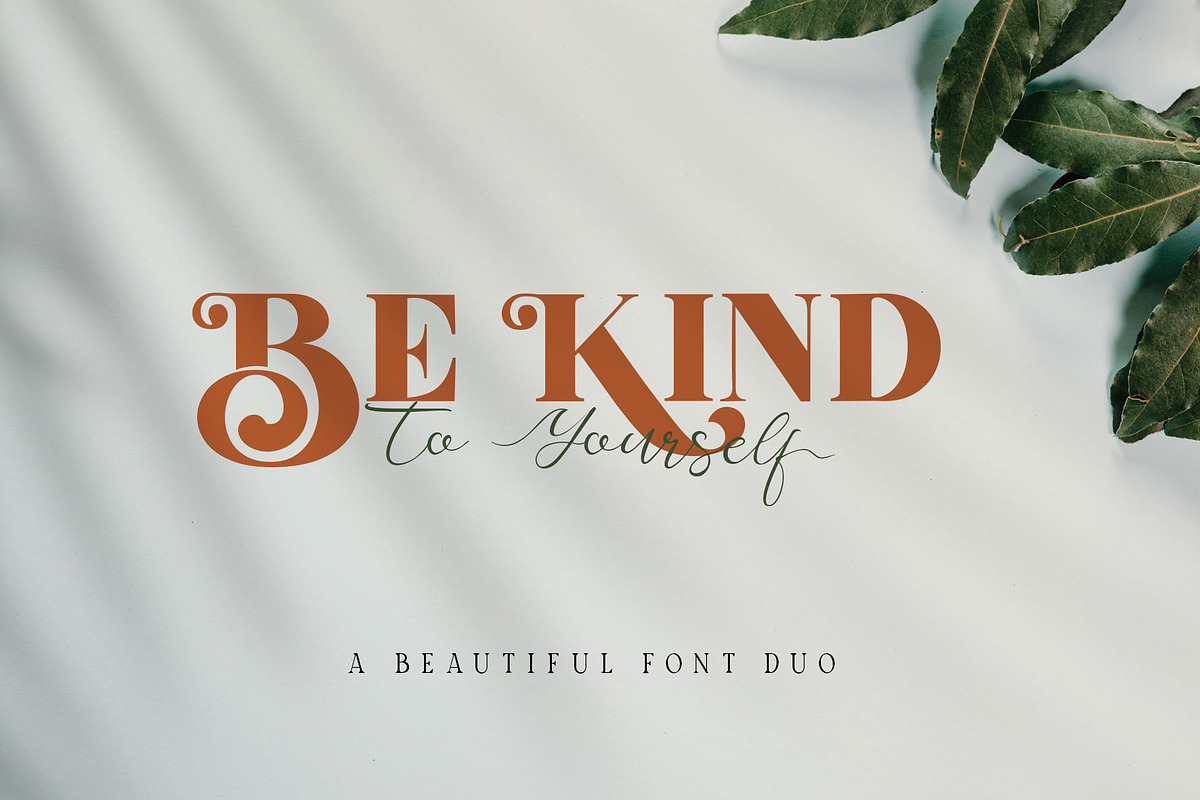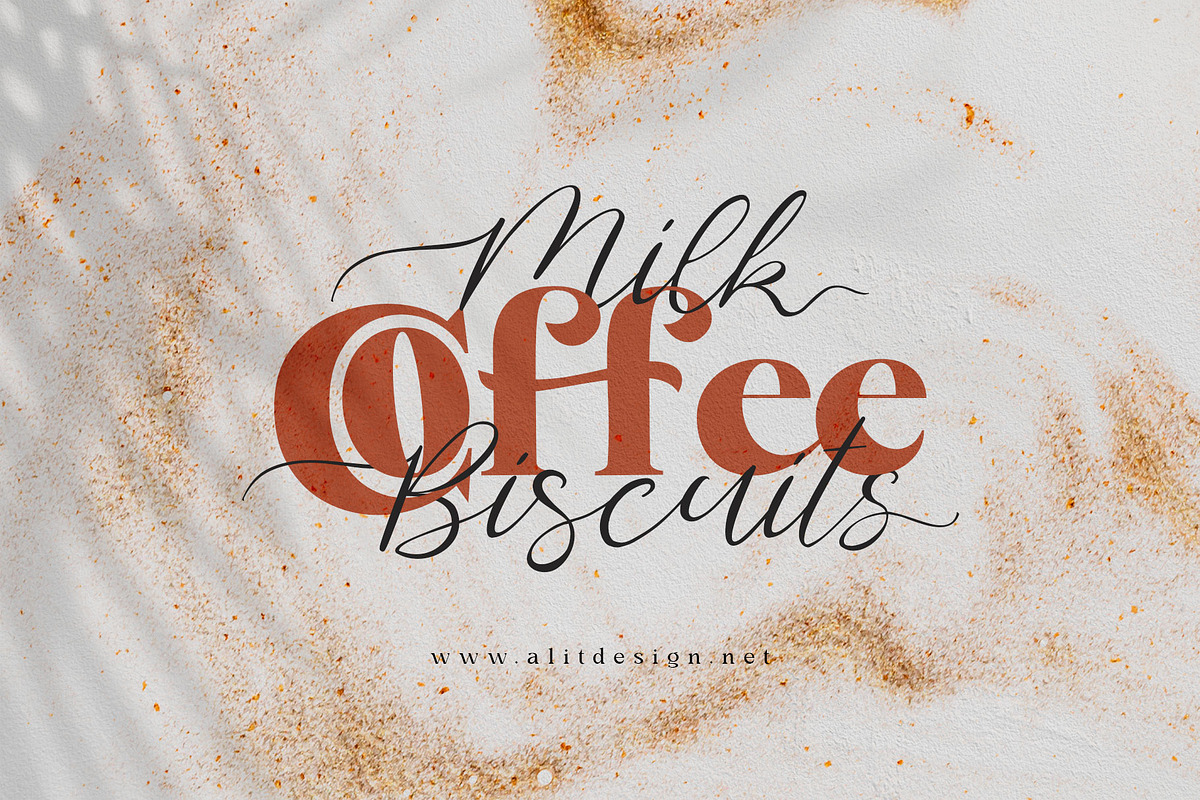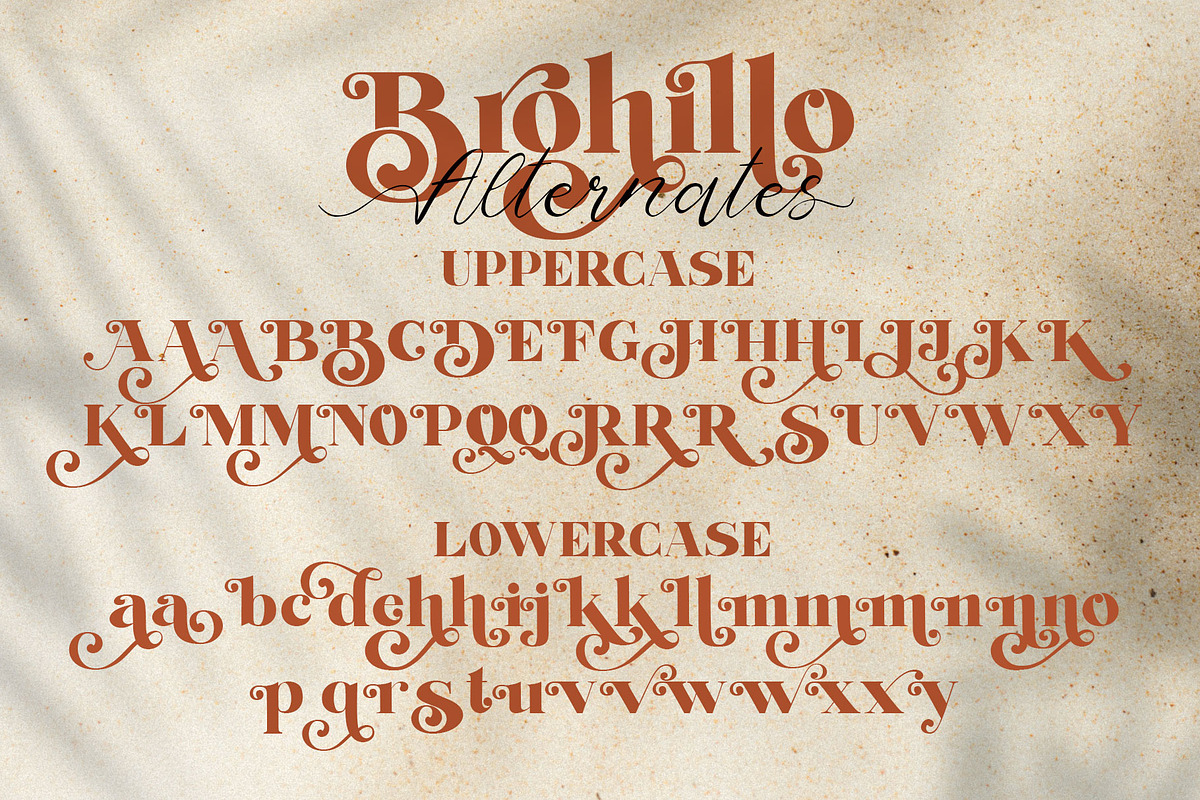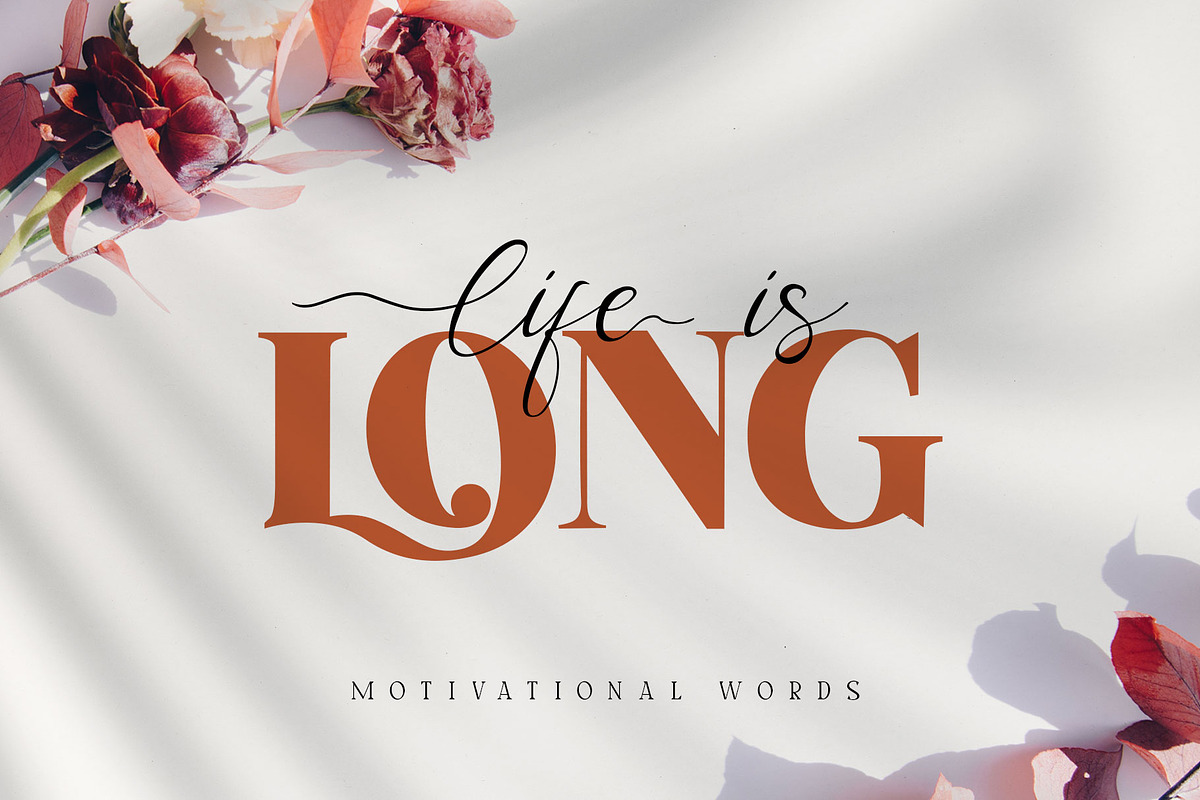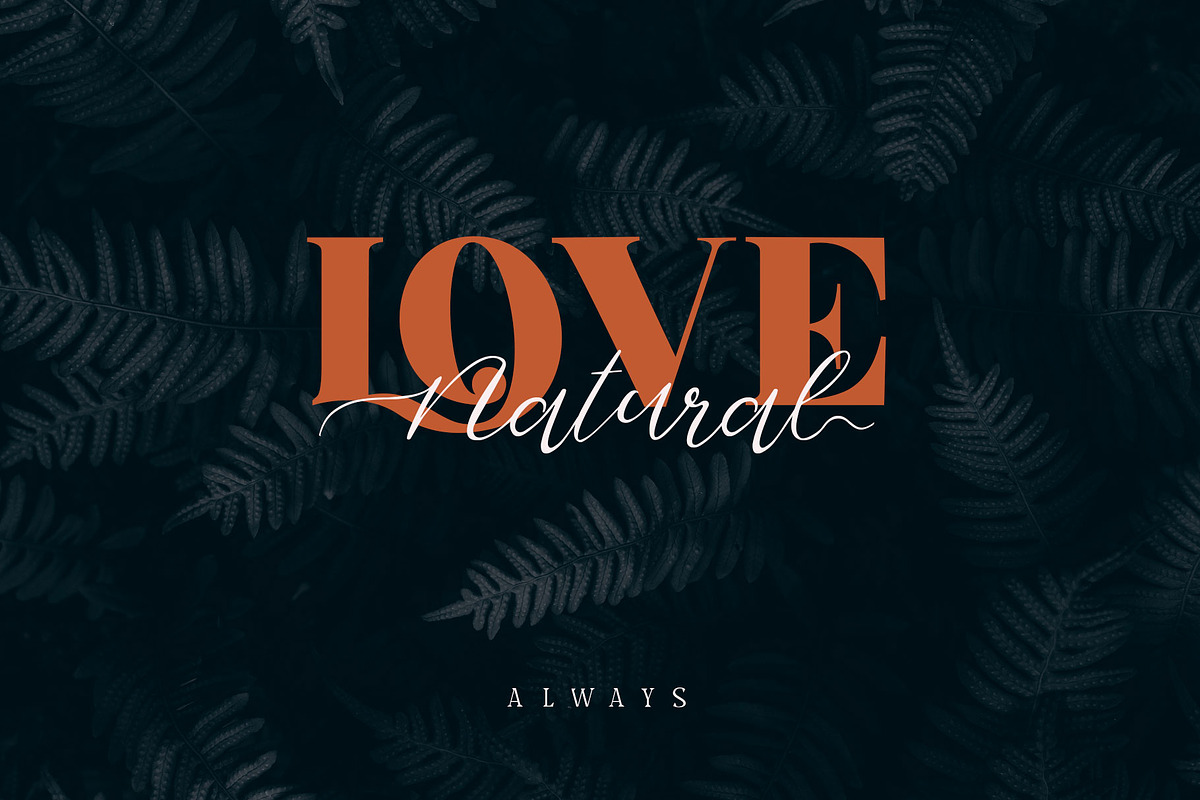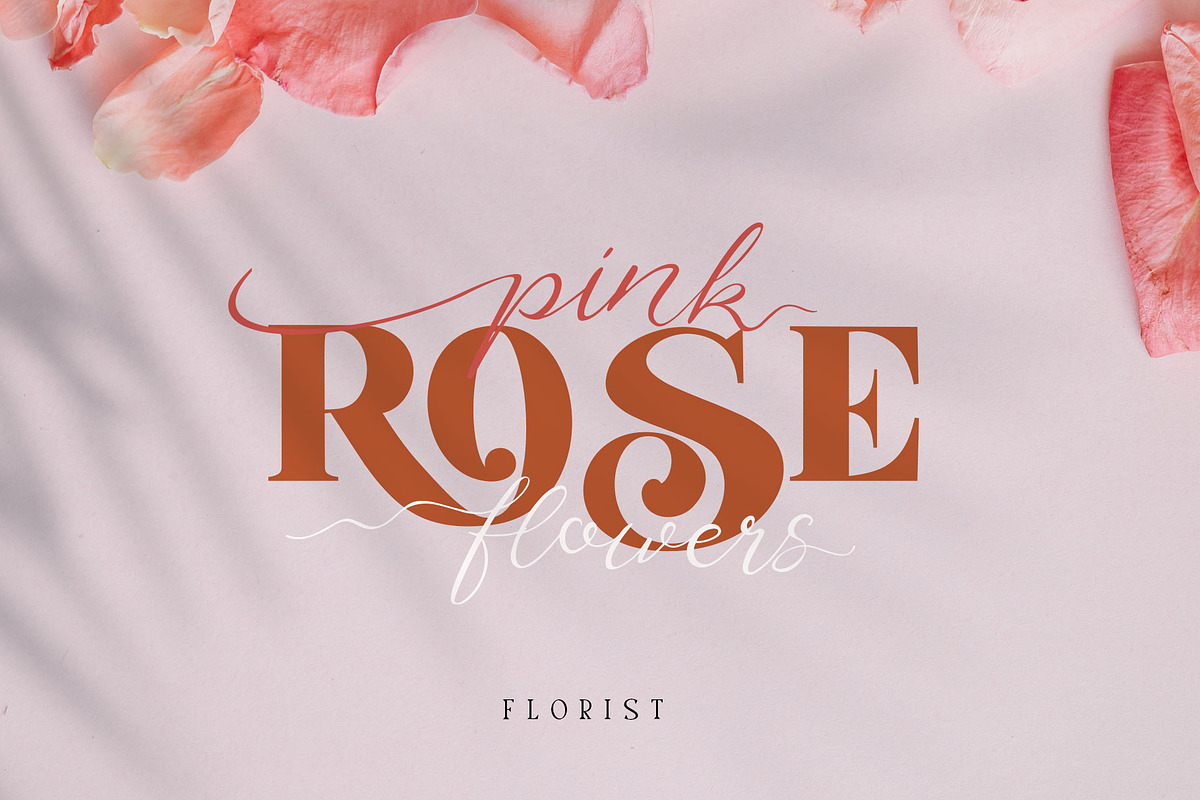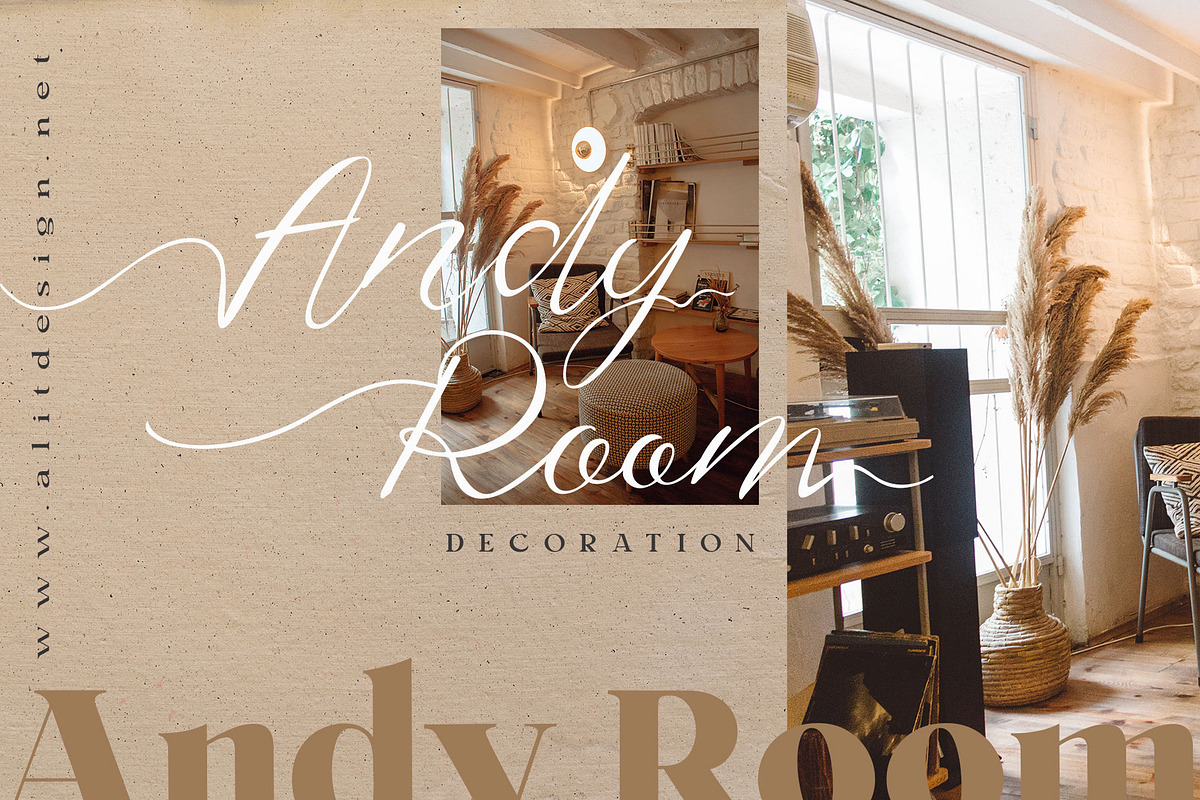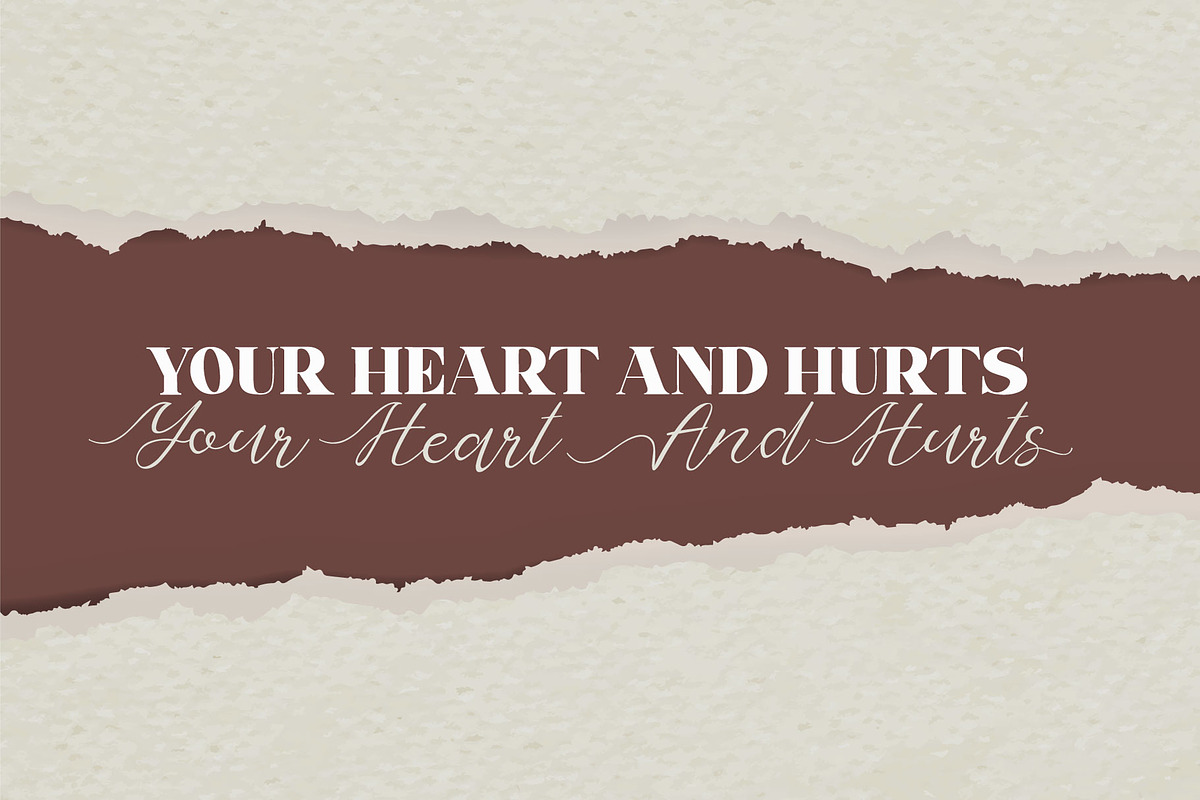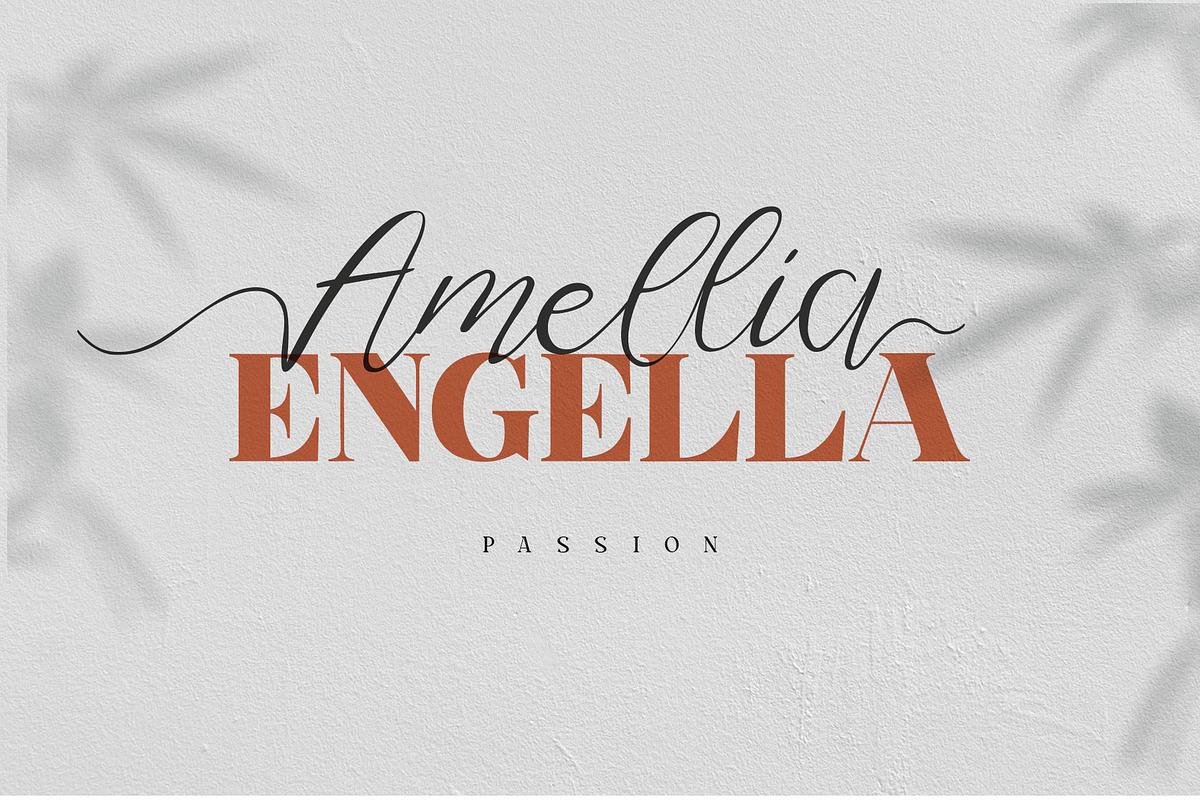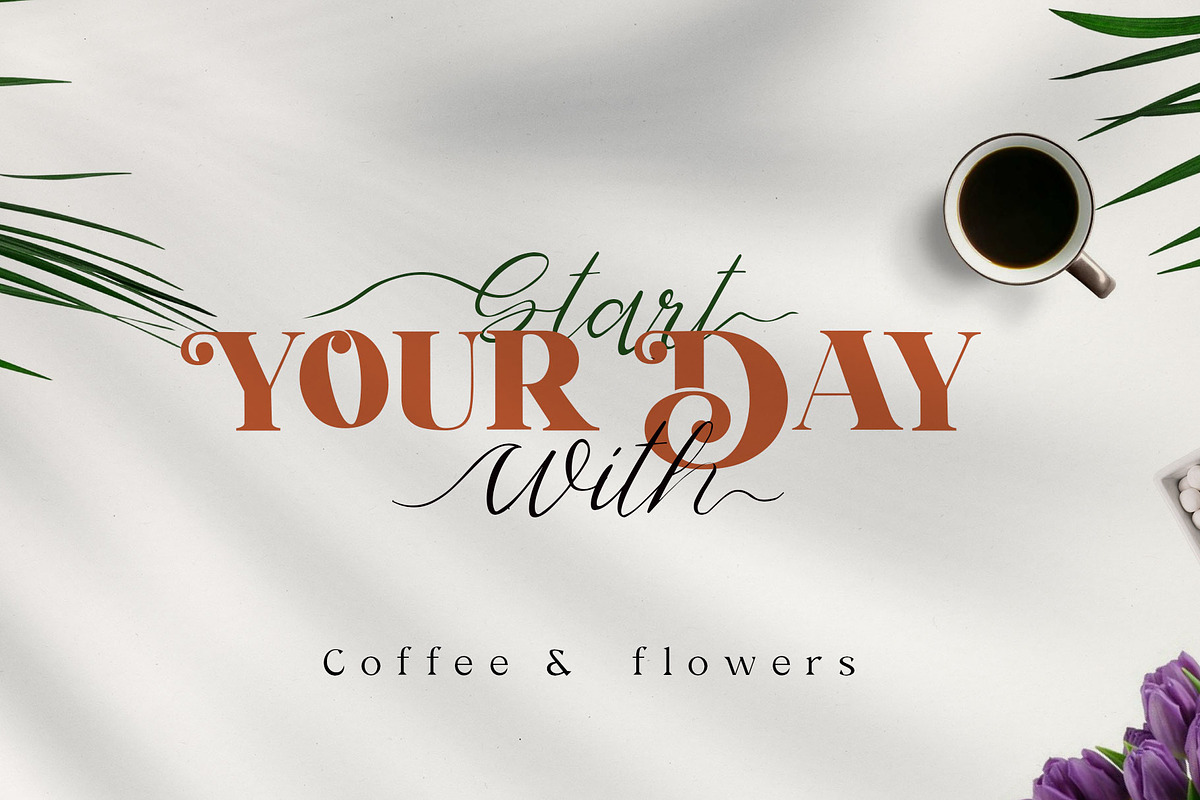
Brohillo Font Duo
Brohillo font is created from the frequent use of typeface for wedding needs. This font has an elegant and bold concept. It is perfect for designs with romantic themes such as wedding properties, Valentine cards, romantic quotes and others.
This Dio font when combined is really good with a bold and bold serif combined with an elegant and spontaneous script to create an awesome design.